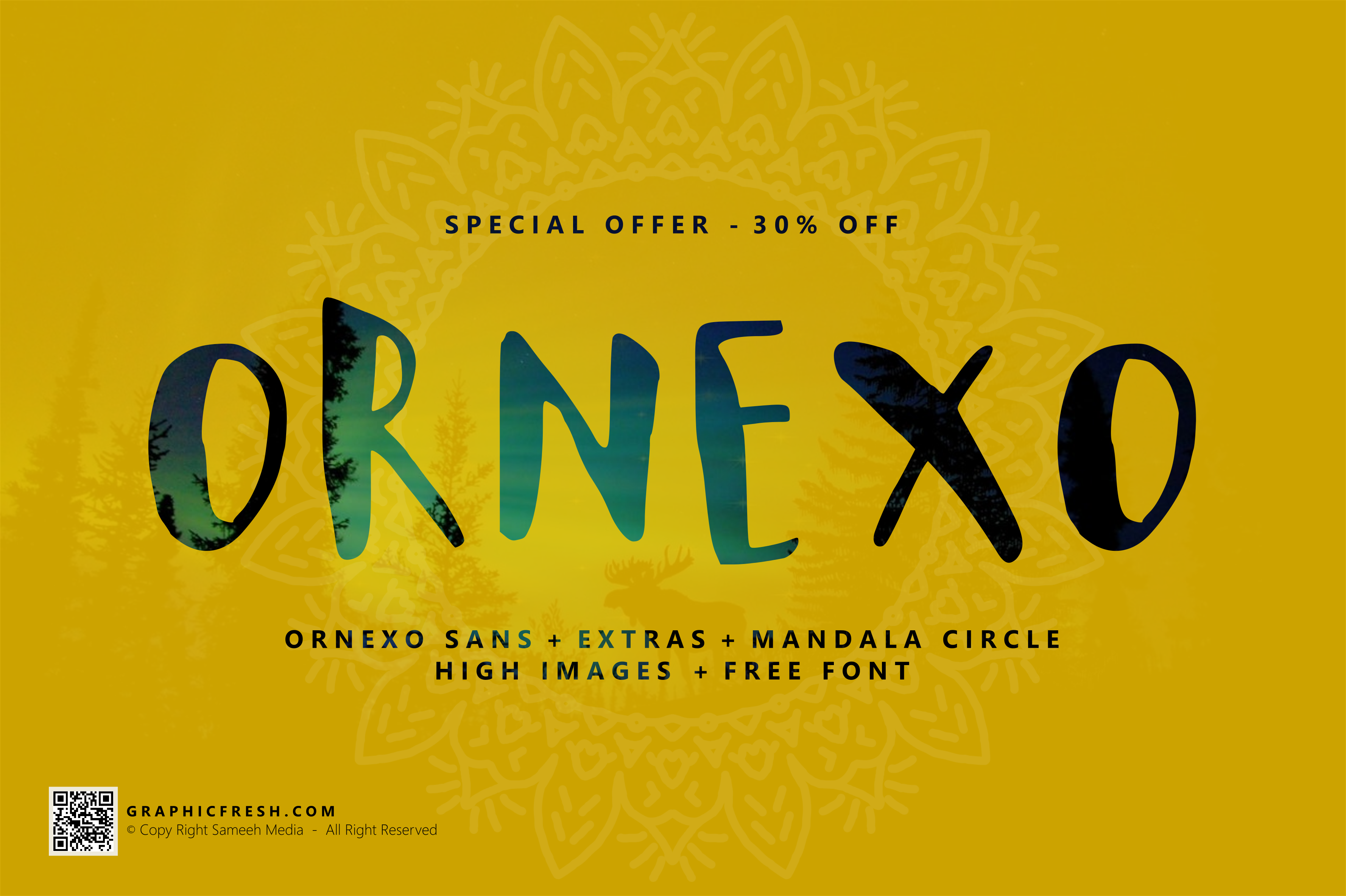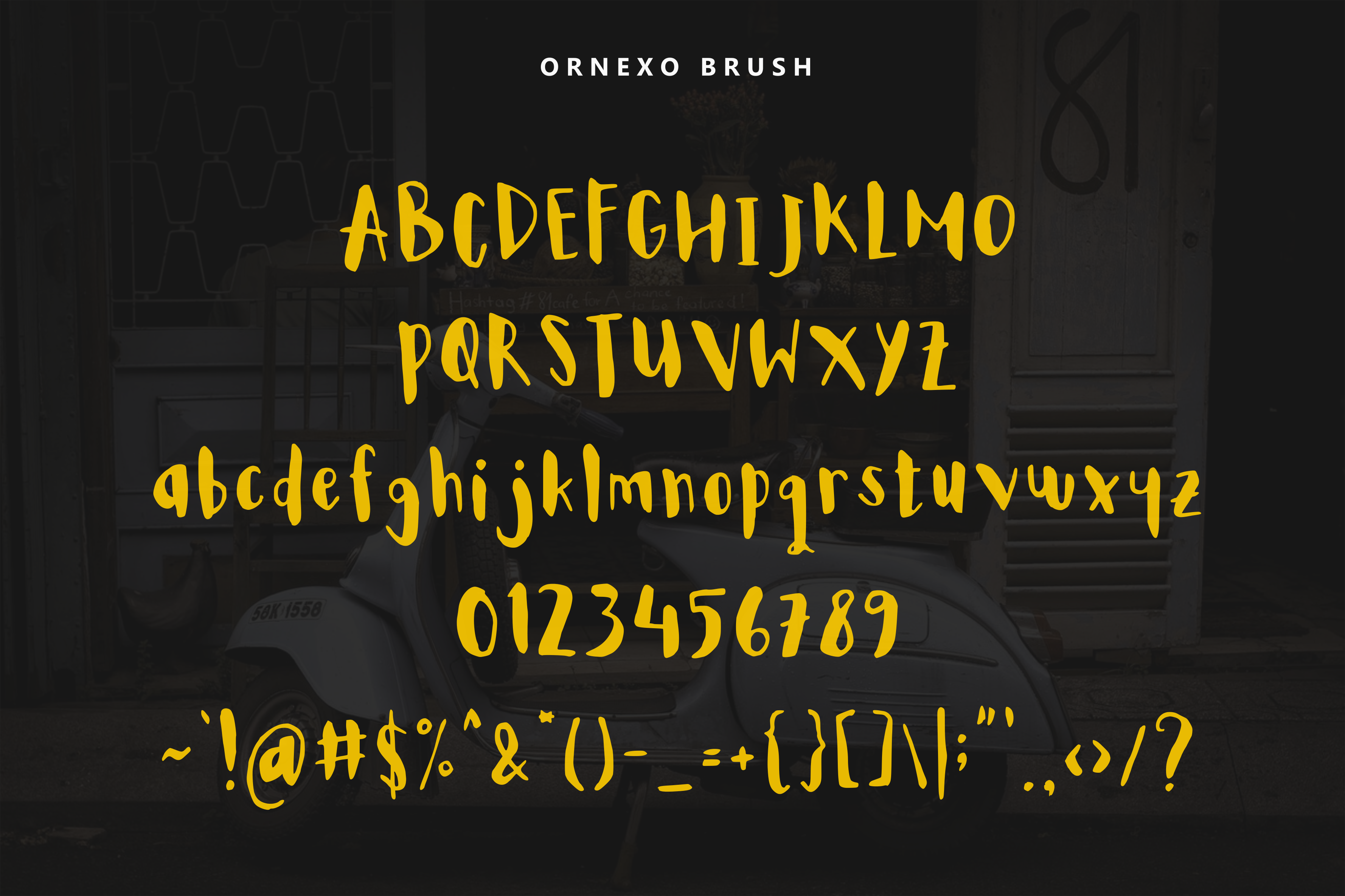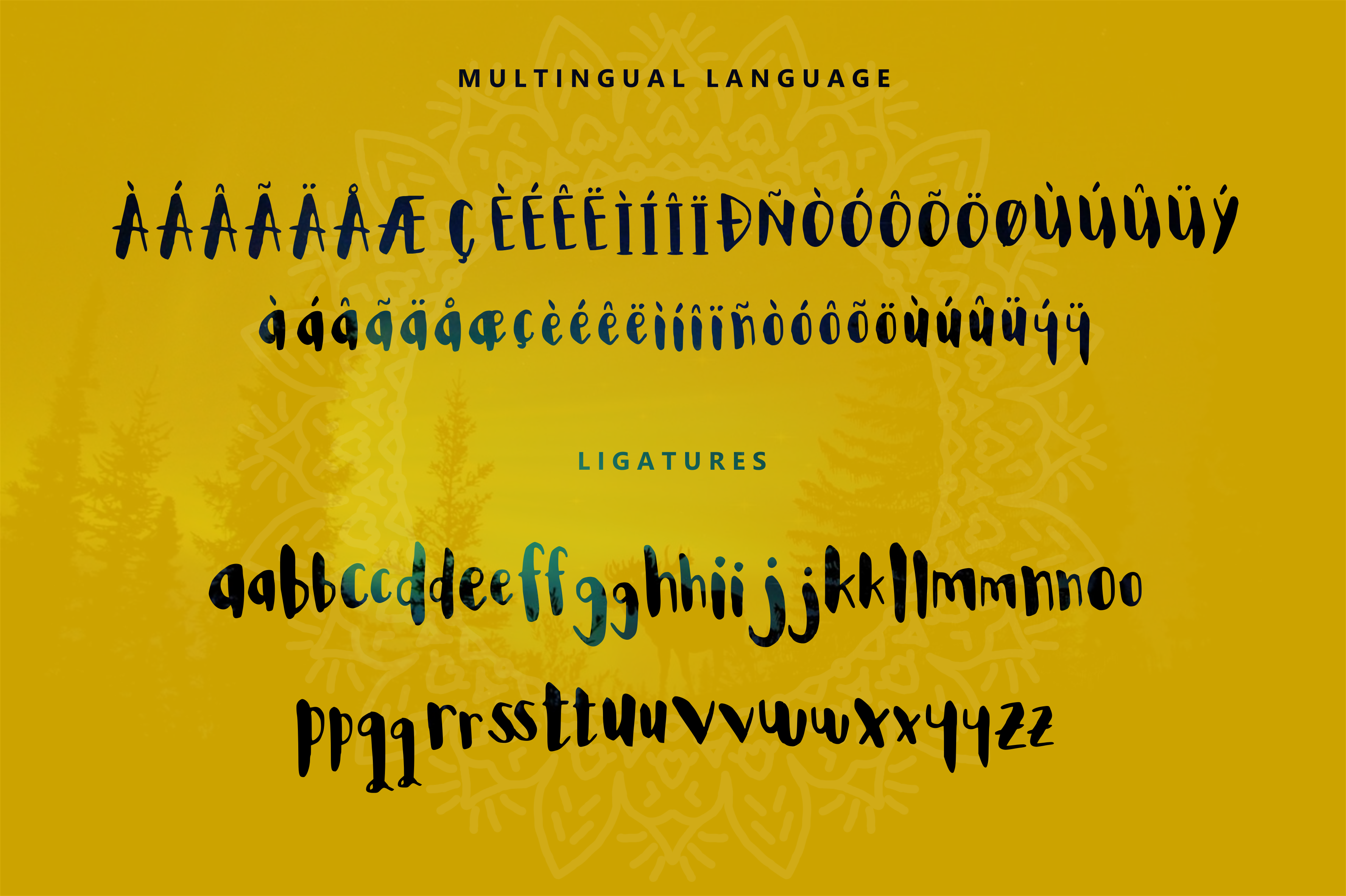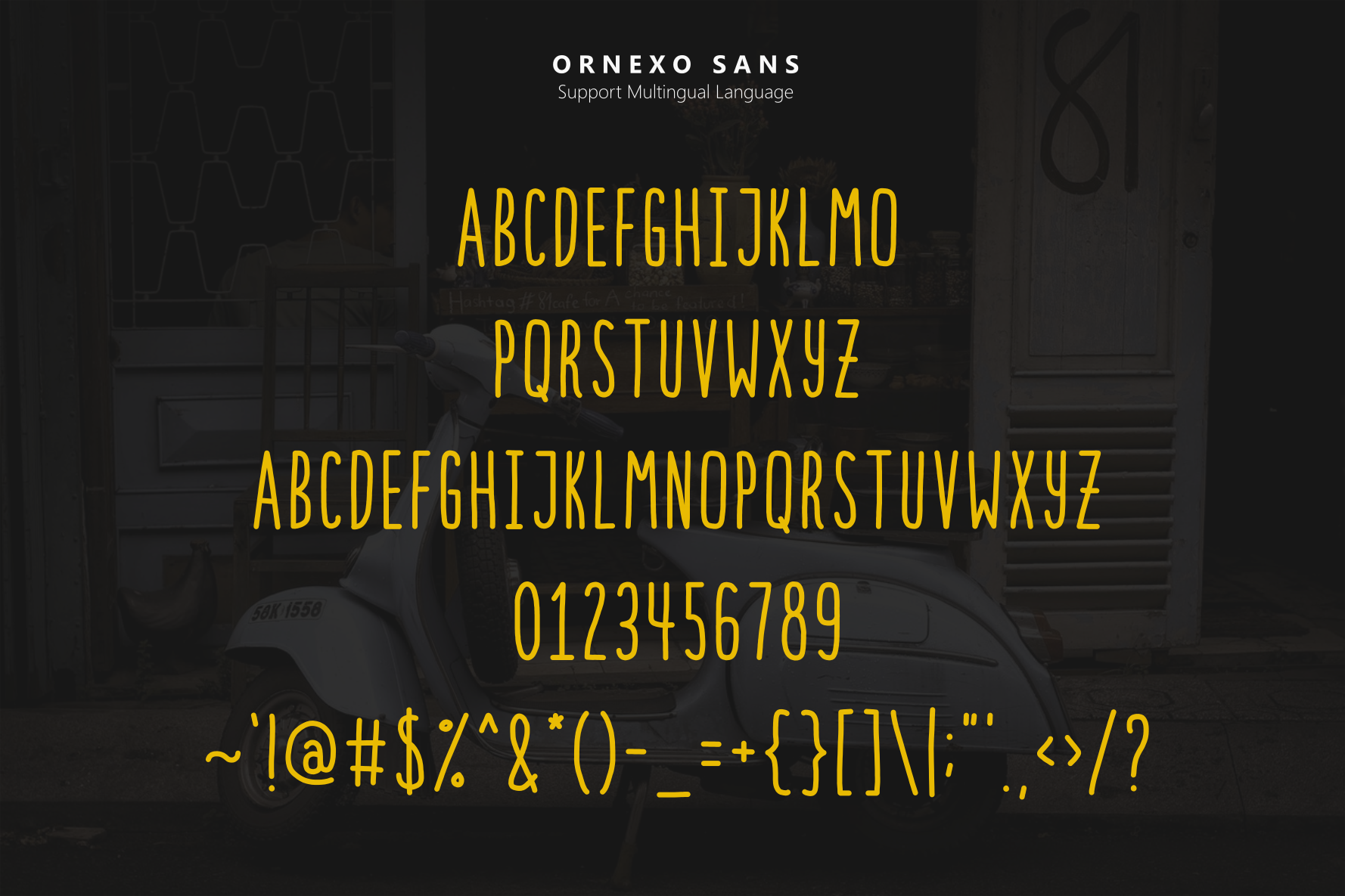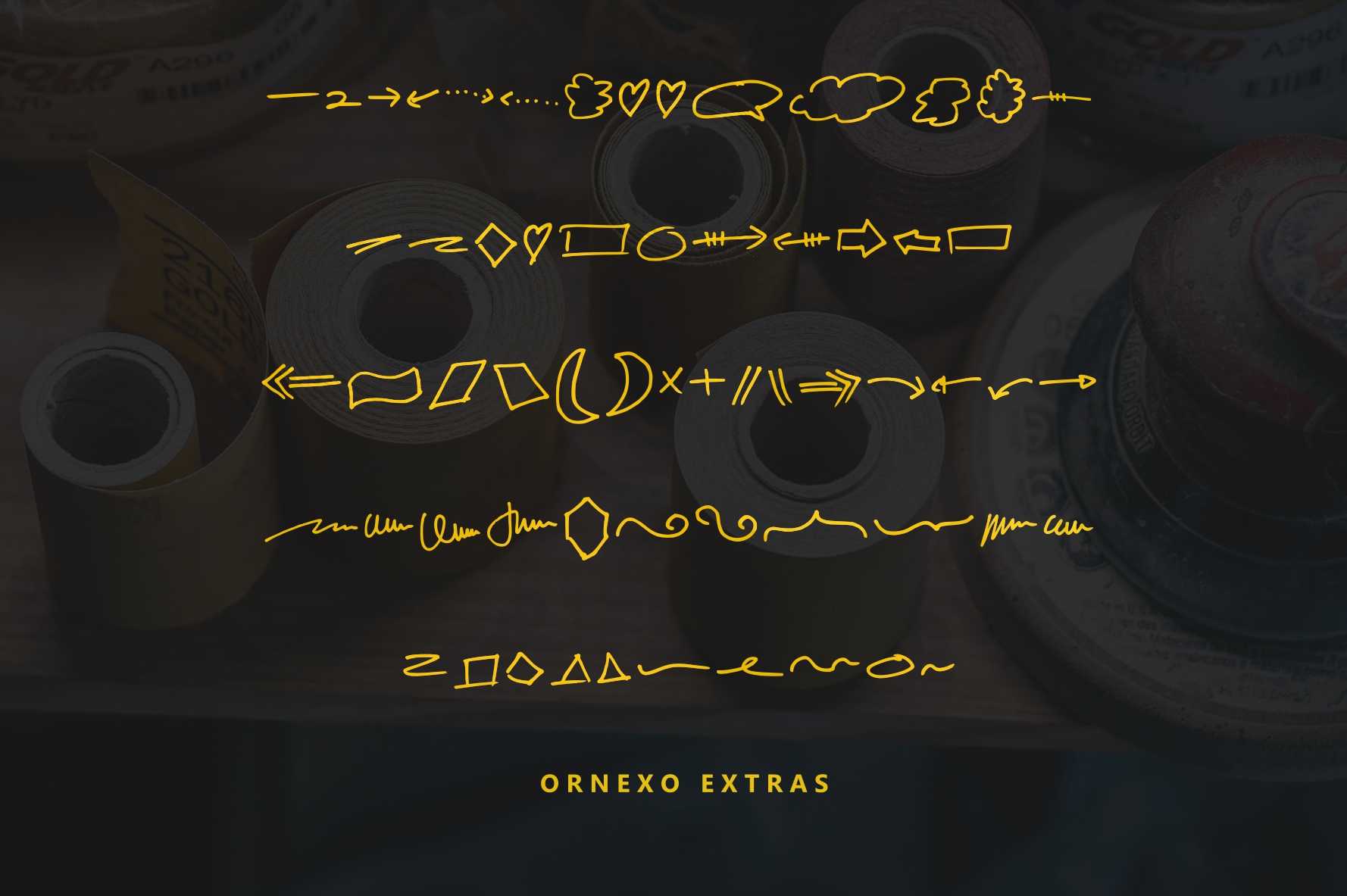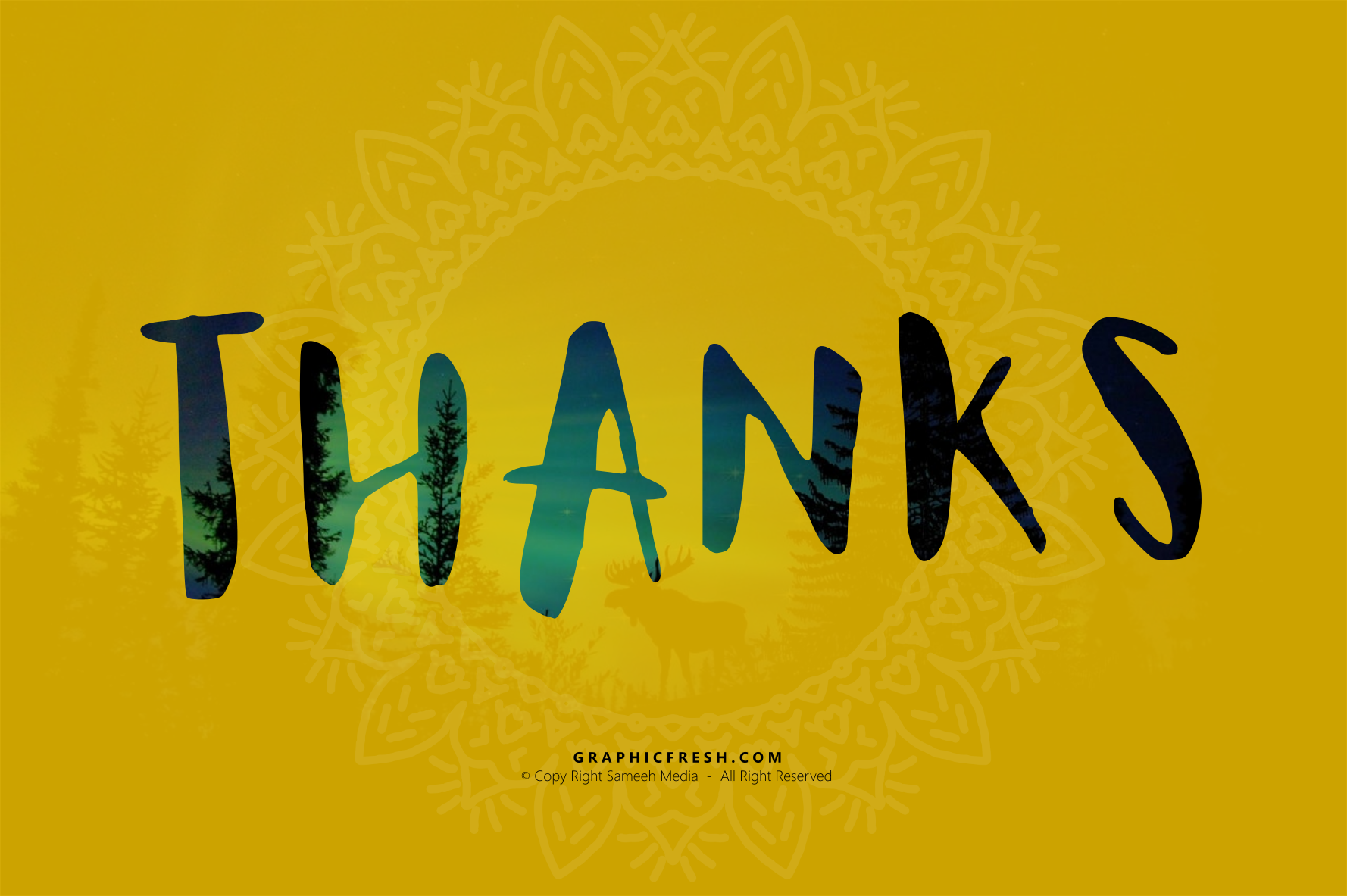
Ornexo Font
About Ornexo Font
Ornexo is a unique, very playful handwritten typeface.
The font comes in 2 styles: Brush & Sans. The 2 styles are very complimentary and are great for mixing and matching.